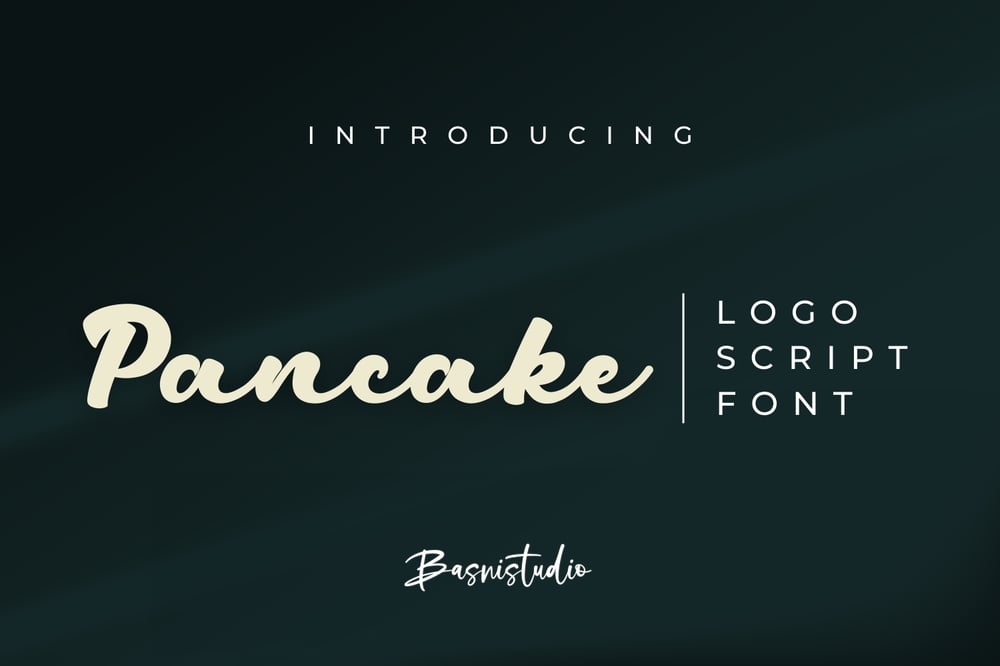
Pancake Font Family was designed by Bery Arisandi and published by Basnistudio. Pancake contains 1 styles and family package options. Introducing Pancake Logo Script Font, made by Naturaly Bold Script With Authentic Style.This Font is perfect for an magazine, clothes, quotes, and so much more. This font is PUA encoded, which means you can access all of the glyphs.What’s include: Pancake Logo Script Font Multilingual Support ( Support for 90 languages )